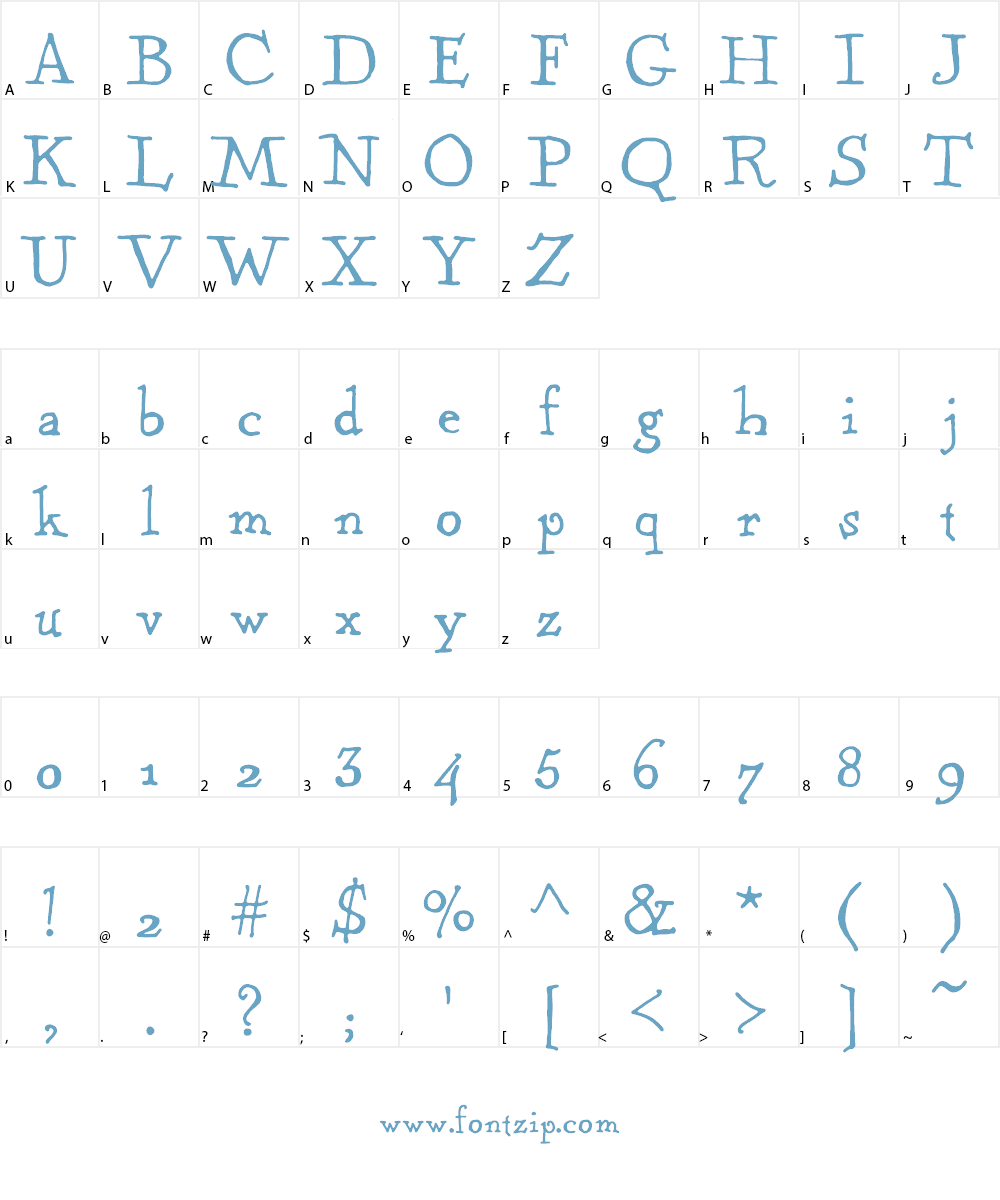
As with many of my hand-drawn fonts, KENTUCKY FIREPLACE was born for fantasy cartography, while mapping the world of Uresia: Grave of Heaven (look for it if you enjoy fantasy worlds!), but I named it for Kentucky because it was a mellow evening with some bourbon involved.